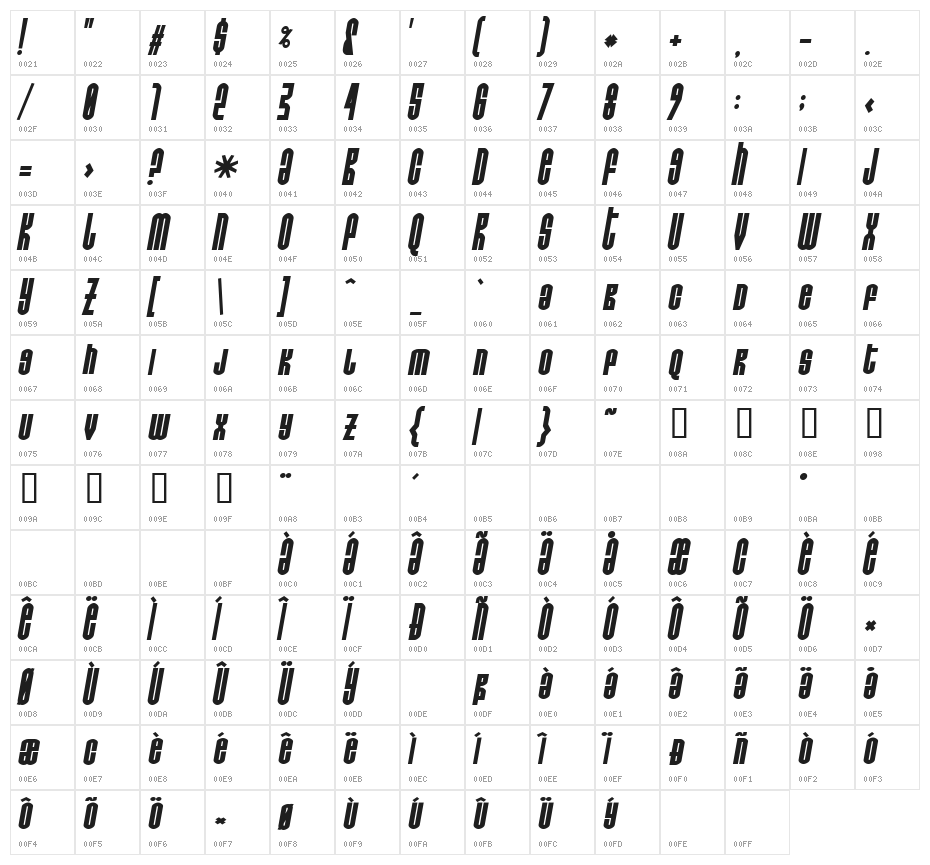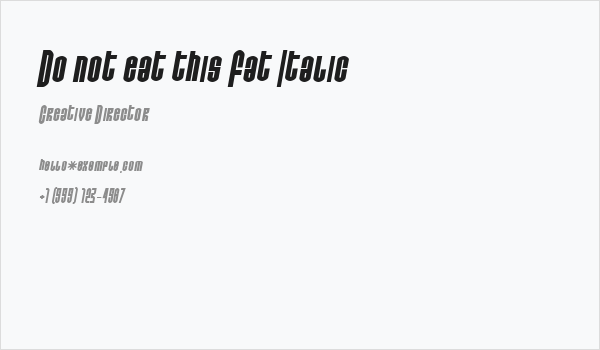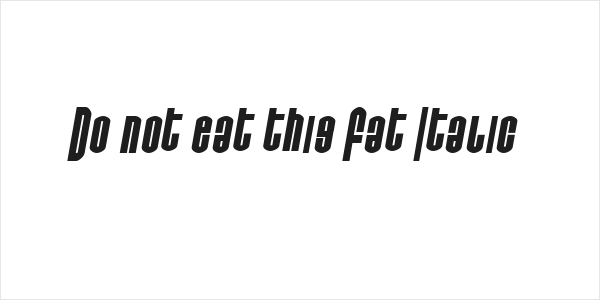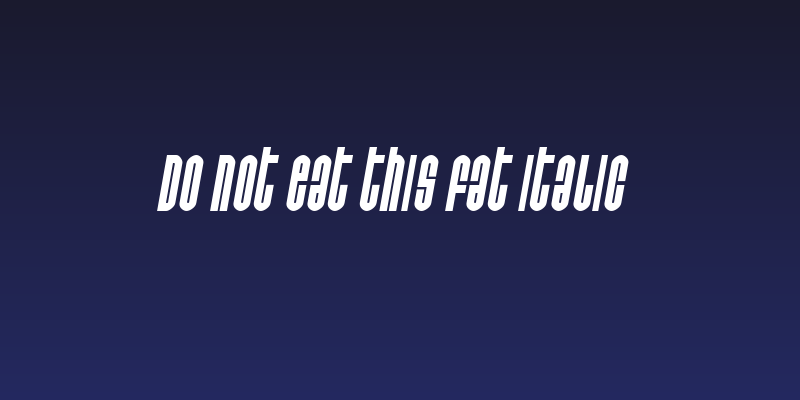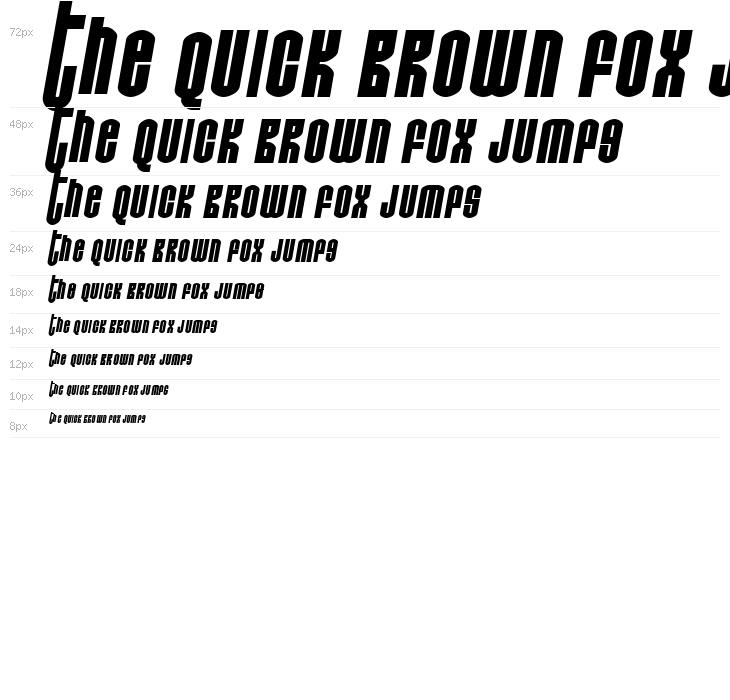
Do not eat this Fat Italic Font
Do not eat this Fat Italic Description
This font features a bold and dynamic style with a strong italic slant, giving it a sense of movement and urgency. The characters are thick and condensed, creating a powerful visual impact. The uppercase and lowercase letters maintain a consistent weight, while the numbers and special characters are designed to match the overall aesthetic. The font's unique design makes it stand out, with sharp angles and a modern flair that is both eye-catching and memorable.
| Proposed Projects | Ideal for use in advertising, posters, and branding projects where a strong visual impact is needed. |